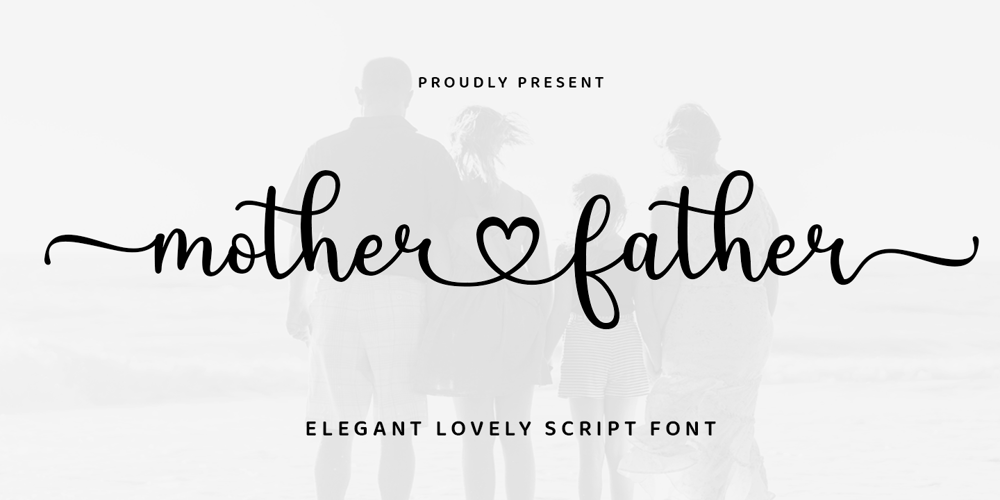
Mother Father Script Font Family was designed by Zaki Muhammad and published by madjack.font. Mother Father Script contains 1 styles and family package options. Mother Father Script! A new fresh and modern handwritten font with decorative characters and dancing baselines. Very beautiful on invitations such as handicrafts, greeting cards, branding materials, business cards, quotes, posters and other design concepts.Feature :Unique ligatureCollection of stylesBasic Latin A-Z and a-zNumberInternational Symbols includedpunctuationPlease send a message if you have any questions?